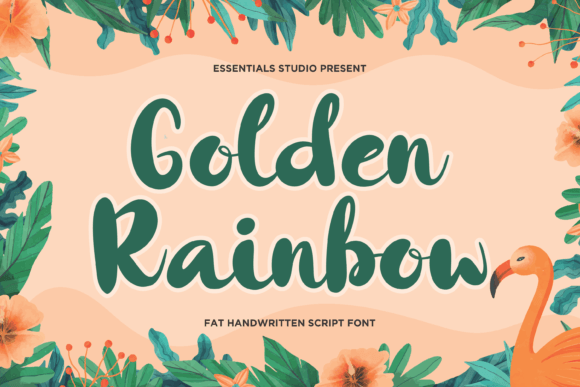
Introducing Golden Rainbow, a script font that exudes an elegance that will captivate your audience. Experience the magic of calligraphy with Golden Rainbow, a font that embodies the grace of handwritten letters. Its delicate curves and sweeping strokes will add a touch of sophistication to your designs, making it the perfect choice for wedding banners, product packaging, branding projects, magazines, social media posts, and more.
With Golden Rainbow, you'll have the power to transform ordinary words into enchanting works of art. Its flowing lines and beautiful letterforms will add a personal touch to your projects, making them stand out from the crowd.
Golden Rainbow is a versatile font that can adapt to a wide range of styles and themes, from classic and elegant to modern and whimsical. Whether you're creating wedding invitations, social media graphics, or product labels, Golden Rainbow will bring a touch of magic to your designs.
Immerse yourself in the world of Golden Rainbow and discover the endless possibilities it offers. Let your creativity soar as you explore the unique charm and elegance of this captivating font. Make a statement with Golden Rainbow, a font that will leave a lasting impression on your audience.